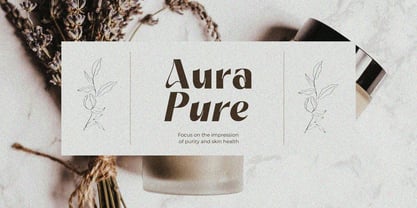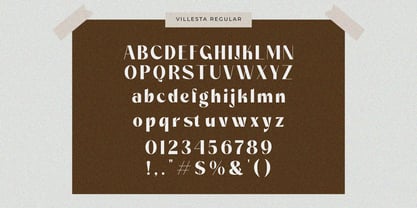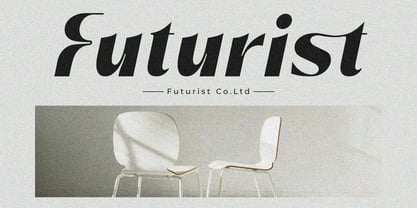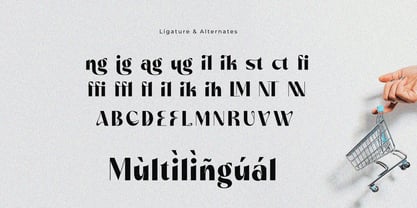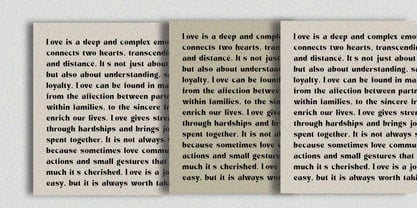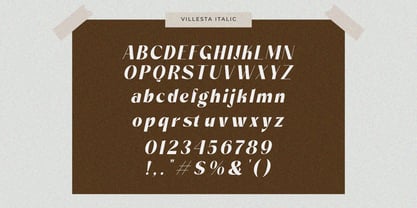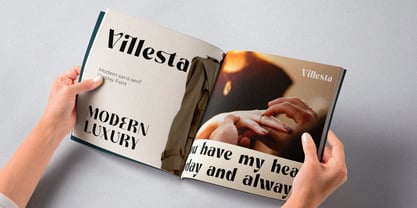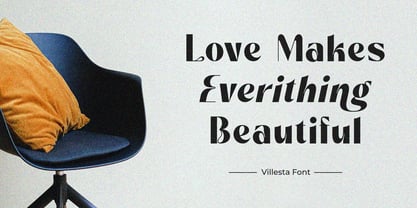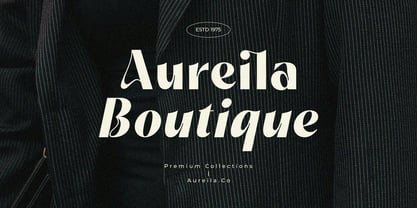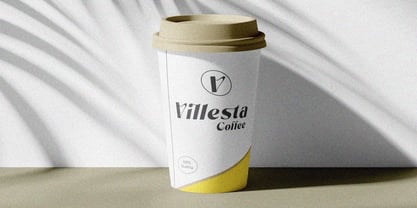
Villesta
The Villesta Font Family was designed by Su Hirno and published by Zafira Type. Villesta contains 2 styles and family package options. More about this family
Villesta is a modern sans-serif font designed to convey a clean, elegant, and minimalist feel. With smooth curves and balanced proportions, this font is versatile for a variety of design applications, from branding and posters to digital interfaces.
Available in two main styles: Regular and Italic, Villesta offers flexibility in design. The Regular style delivers a bold, professional look, while the Italic style adds a dynamic, expressive touch, perfect for highlighting important elements of text.
With its contemporary design and excellent readability, Villesta is the ideal choice for projects that require a modern and stylish appearance